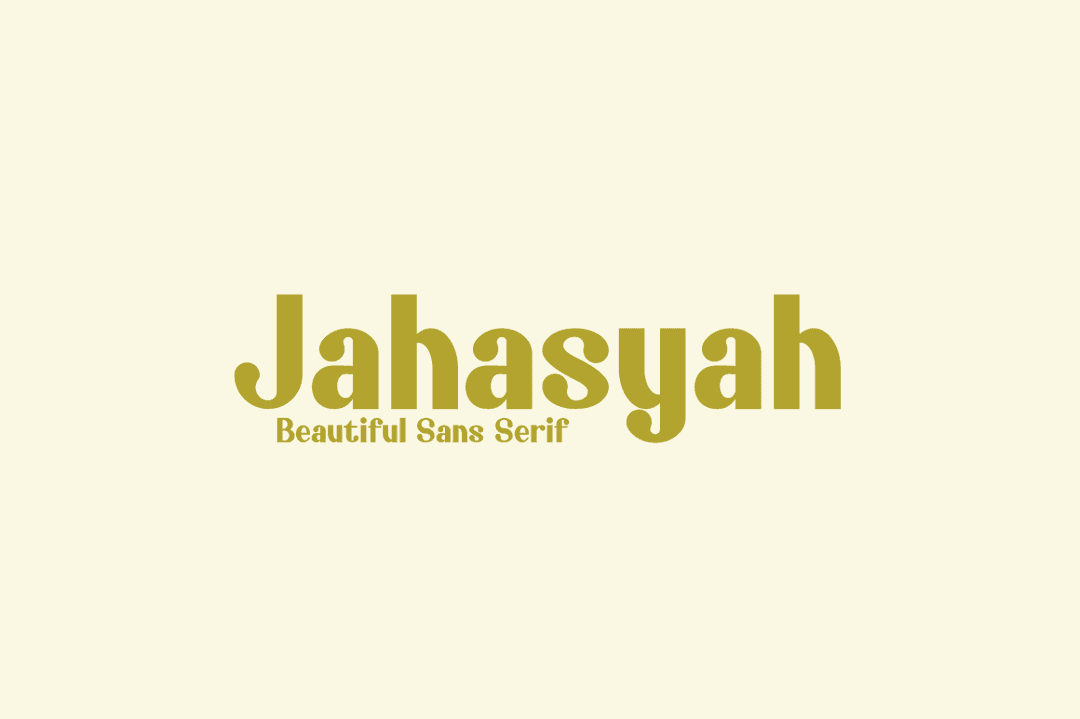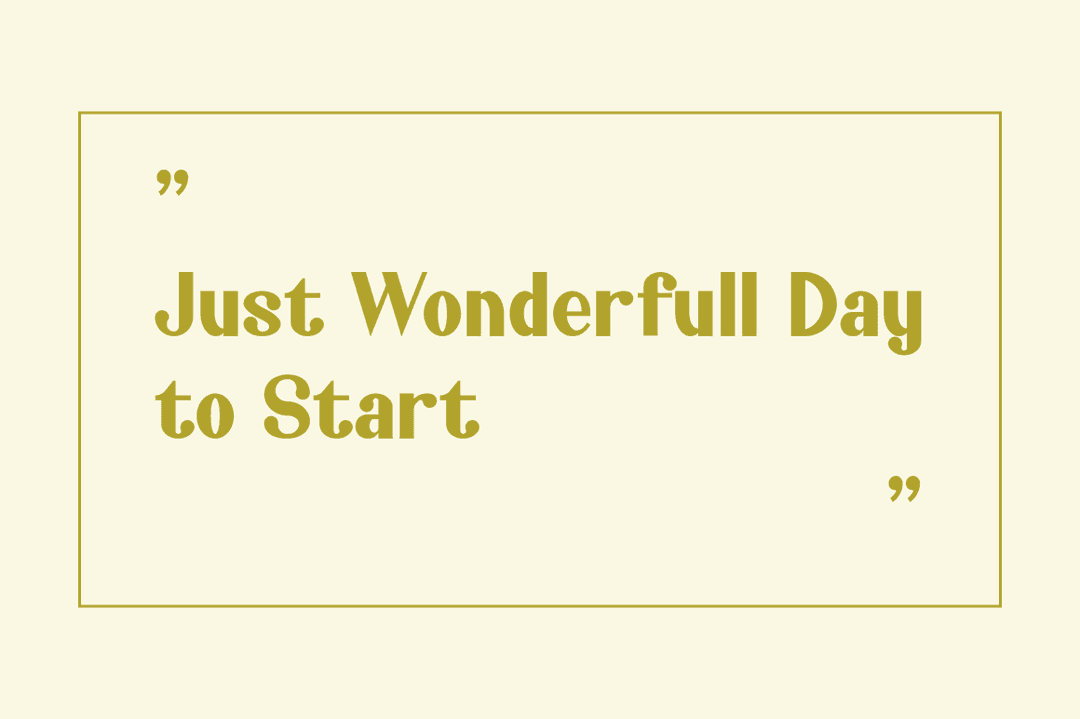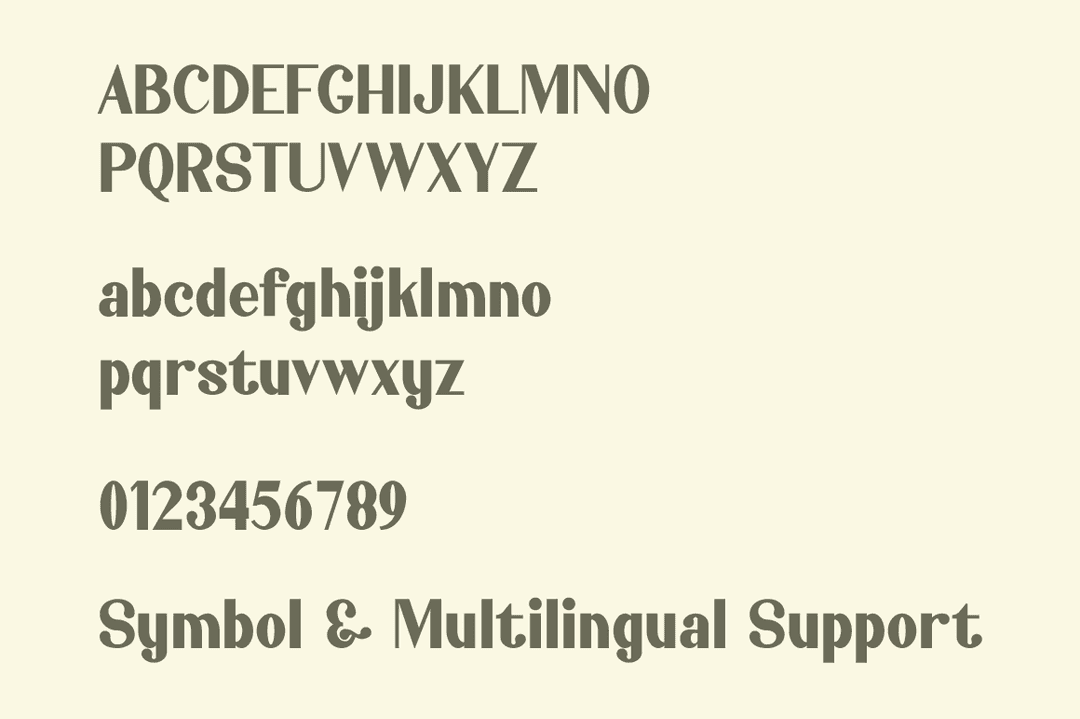
Jahasyah an incredibly versatile, easy-to-use functional display sans serif typeface that has an appealing personality, particularly its uppercase letters, which make the work of the designer more efficient. The font was designed with the goal of presenting the reader with a clear, easy-to-read multi-purpose typeface that is easily read whether on the screen or printed.